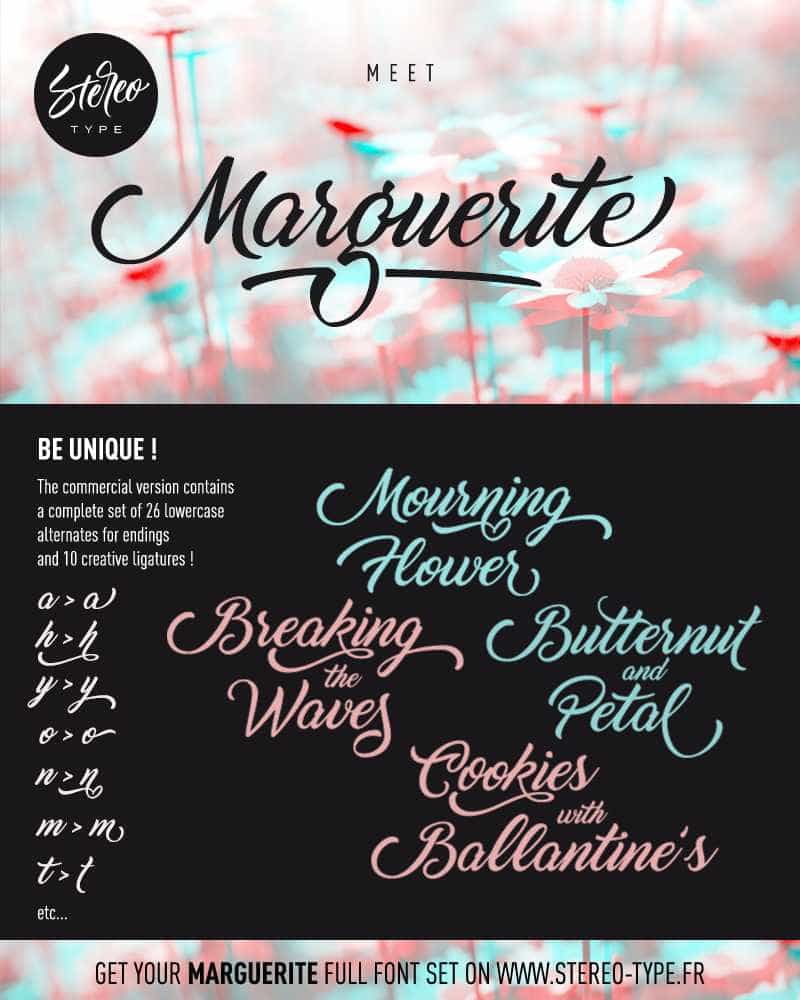
Marguerite is a typeface inspired by the concept of contemporary femininity, the style is classic yet modern, elegant yet unpretentious. The full commercial version is accompanied with the set of alternate glyphs and ligatures. These items are available in this font: Uppercase & Lowercase, Stylistic Alternates, Ligatures, Symbols & Punctuation, and OpenType Features.